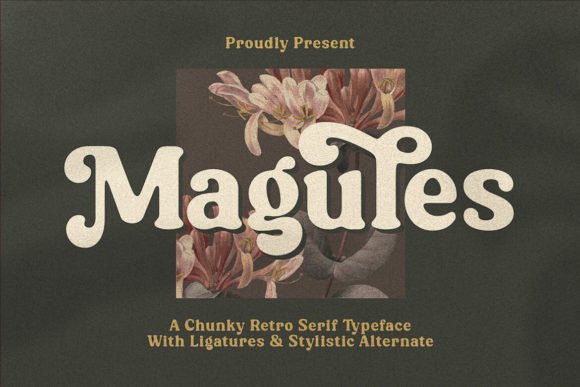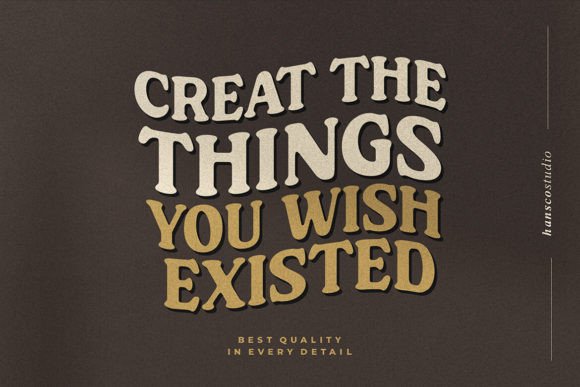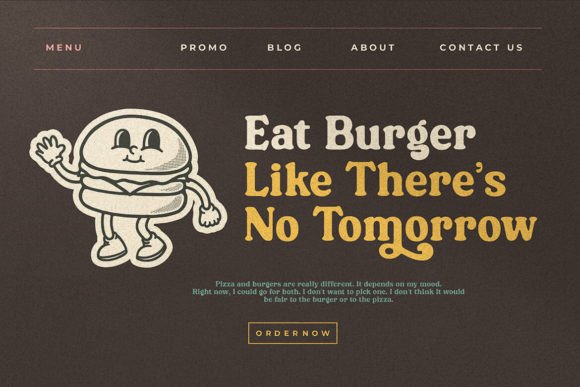
Magules Font: Chunky Retro Serif for Eye-Catching Logo Design
About the Magules Font
Let us introduce you to Magules Font, where timeless design meets modern craftsmanship. Magules is a serif typeface with vintage and retro look!. Equipped with all complete characters ranging from uppercase letters, lowercase letters, numbers, punctuation marks and multi-lingual support, this font is ready to be used in any project. Very suitable for Logotype, Stickers, Packaging design, Cricut Project, Headlines, Brand identity, T shirt or Apparel industry, Posters, Magazines, Books, YouTube, Instagram, Websites, Canva, Corjl or any of your creative design projects. Use this Magules font to add that special modern retro serif touch to any design idea you can think of!
Magules Font Usage Examples
Magules Font Example